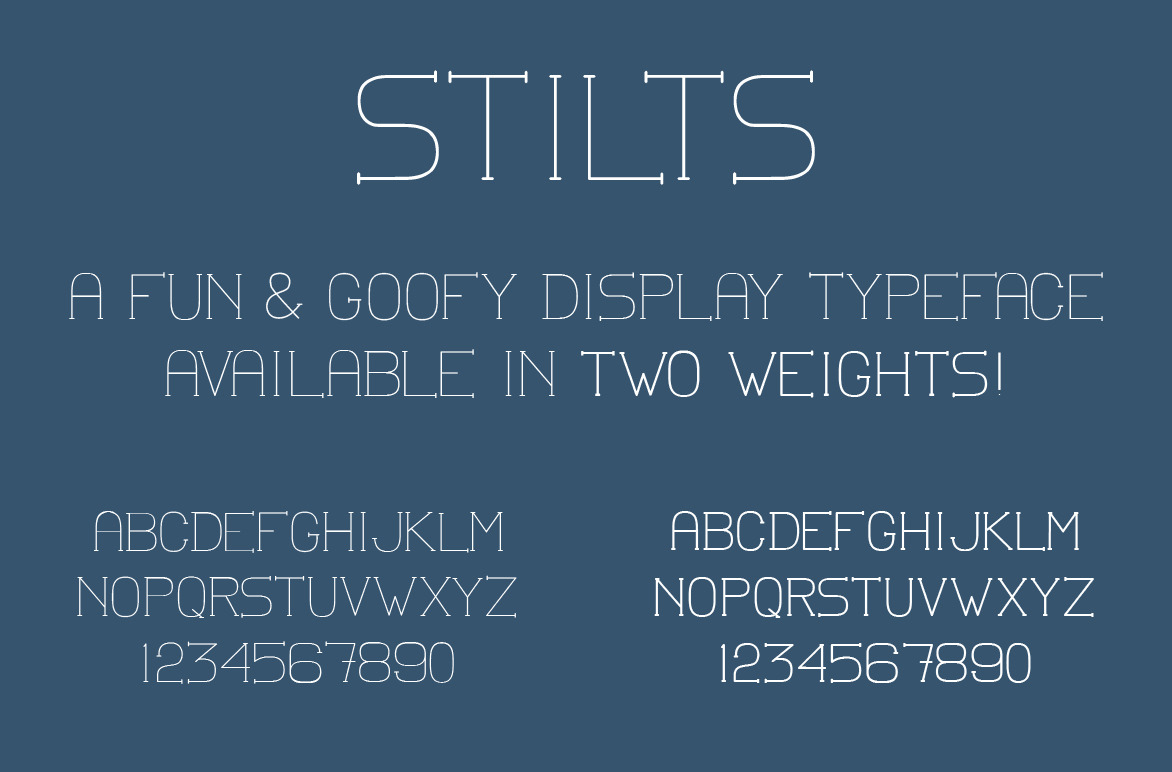
Stilts - Display Font
Stilts is a whimsical typeface that is perfect for fun headlines. This all uppercase display face is available in two weights, bold and regular. We've also included a CSS file and the necessary font formats to add this font to your website using @font-face.